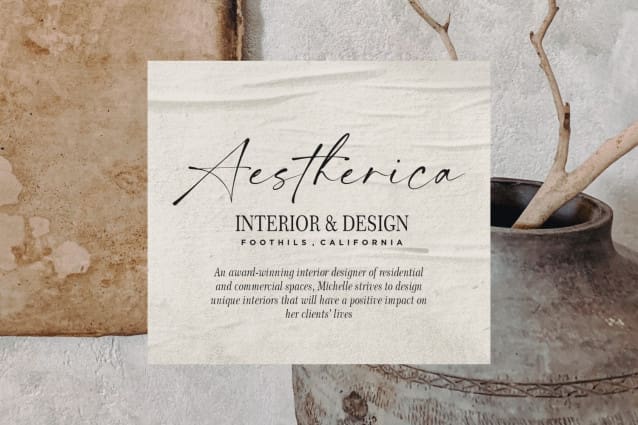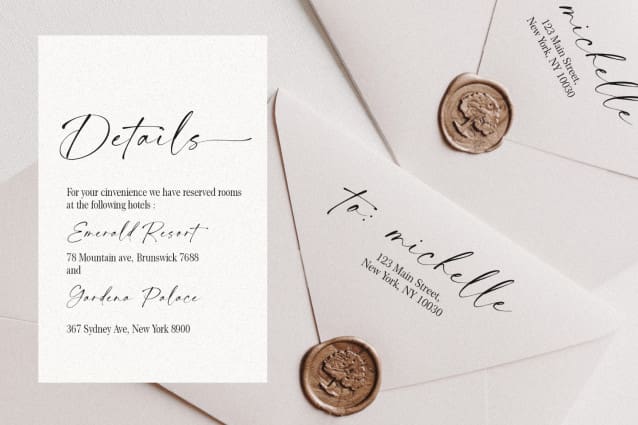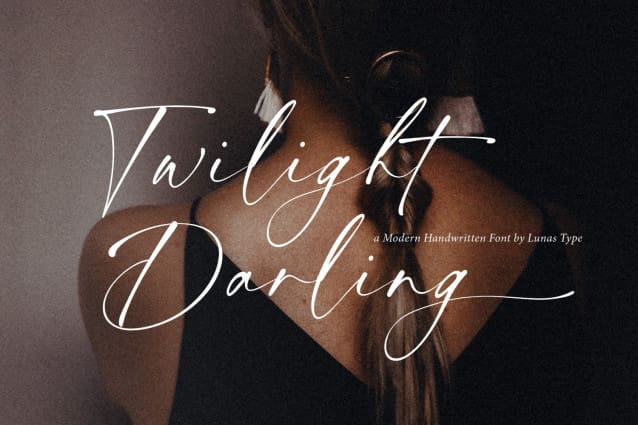
Twilight Darling Font
Twilight Darling Font has a natural expression, with a charming and elegant impression. A modern and luxurious handwritten font comes with handwritten swashes and ligatures.
Twilight Darling brings a charm feeling and clean style to your design such as wedding, stationery, logos, social media quotes, branding identity, and many more.